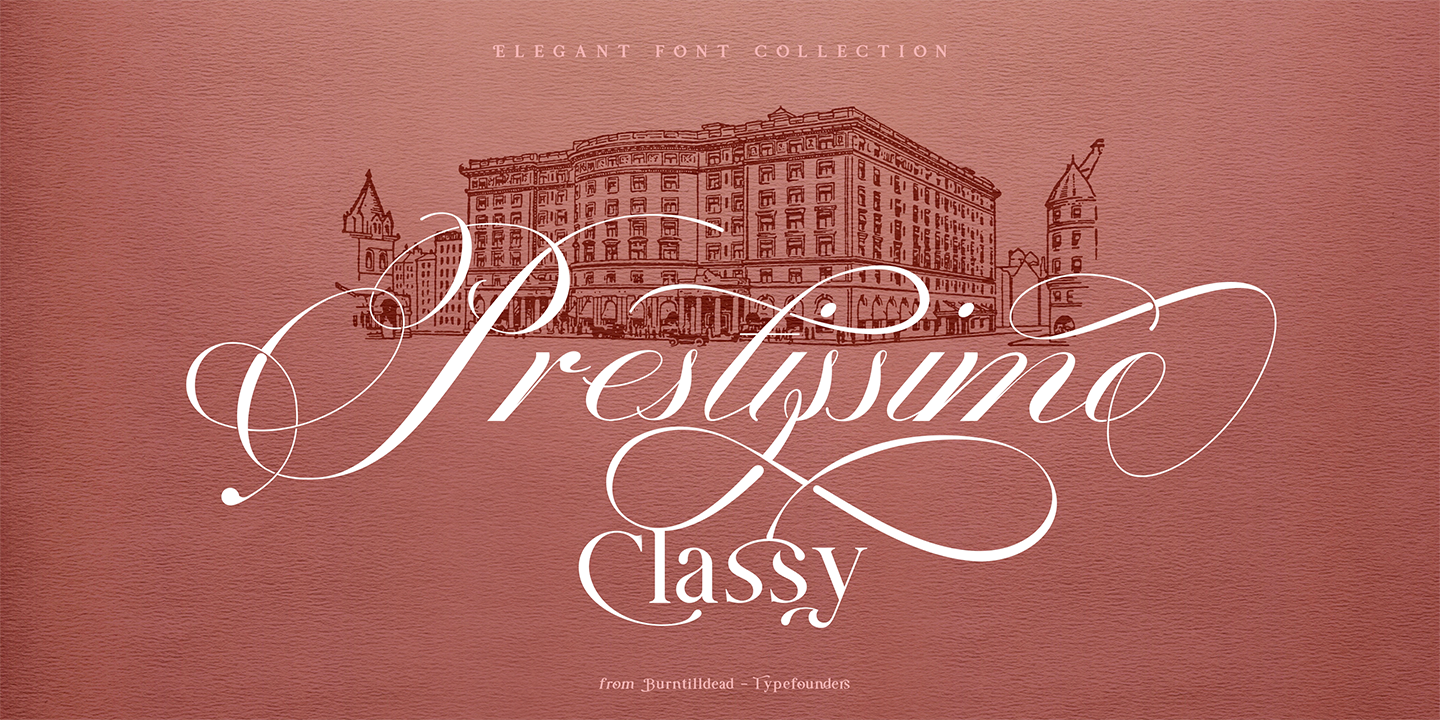
The Prestissimo Classy Font is incredibly versatile, making it an exquisite choice for a wide array of design projects that aim to evoke a sense of high-end sophistication, refined elegance, and timeless beauty. Imagine it gracing luxurious wedding invitations, adding a distinguished flair to bespoke branding for upscale fashion houses, or bringing a polished, refined feel to editorial layouts for elite lifestyle magazines. It's also fantastic for crafting elegant product packaging for premium goods, unique signage for chic boutiques, and captivating web headers that stand out with their understated allure. Its inherent grace and balanced proportions make it perfect for any project striving to communicate prestige, artistry, and an undeniable sense of enduring style.
What makes Prestissimo Classy Font so exciting is its unique ability to combine classic typographic elements with a modern, delicate touch. It often features clean lines, subtly refined serifs or elegant sans-serif forms, and a balanced weight that gives it an immediate sense of sophisticated luxury. This font doesn't just display text; it curates an experience, making your message feel exclusive, artful, and effortlessly chic. Its balance of aesthetic appeal and functional clarity ensures that your designs are not only beautiful but also effectively convey their intended sentiment. It's a typeface that brings an atmosphere of refined artistry and contemporary charm to your typography, guaranteeing your projects leave a sophisticated and memorable impression.
The Prestissimo Classy Font family typically includes a range of weights and stylistic alternatives to provide extensive creative flexibility. While specific options can differ, you can generally expect to find alternatives like Regular, Bold, and potentially a Light or Italic version, along with various ligatures or alternate characters for enhanced customization. These different weights and stylistic sets allow you to create dynamic visual hierarchies and add nuanced artistic flair to your typography, ensuring a cohesive and beautifully crafted design. This comprehensive family support ensures that whether you need a strong, elegant headline or a subtle, refined body text, Prestissimo Classy Font Free Download offers the perfect elements to bring your sophisticated vision to life.